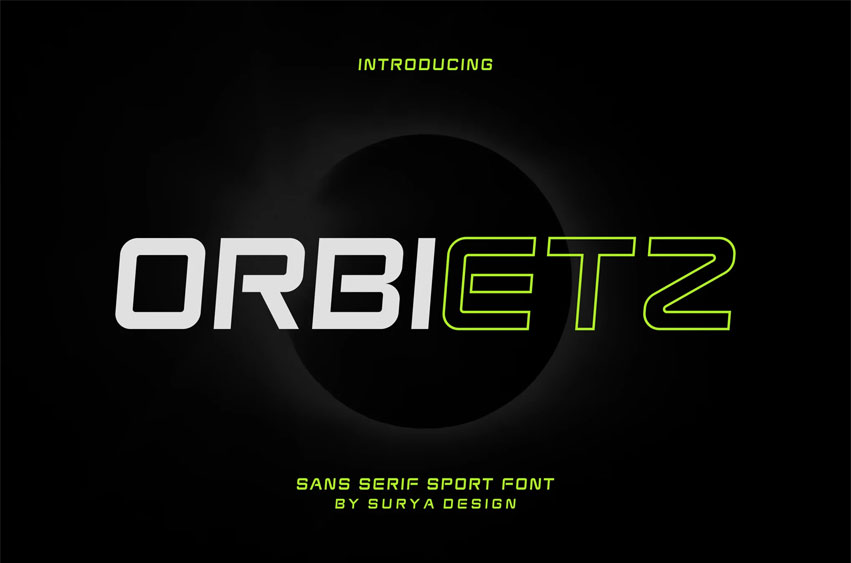
Orbietz Font Modern Font is a bold and authentic display font. The font is suitable for any branding project like logo, t-shirt printing, esport, and many more.